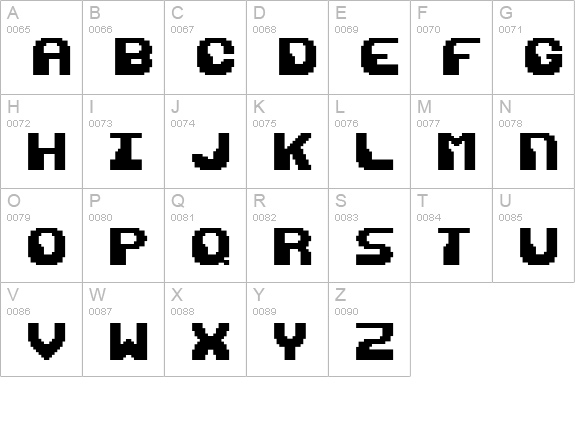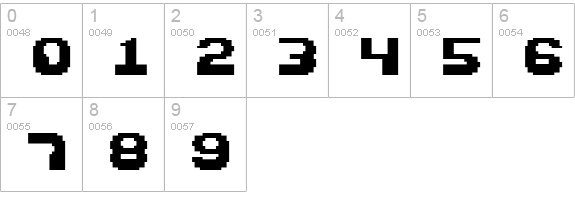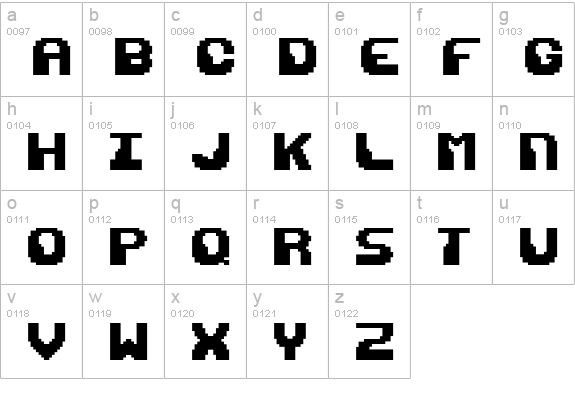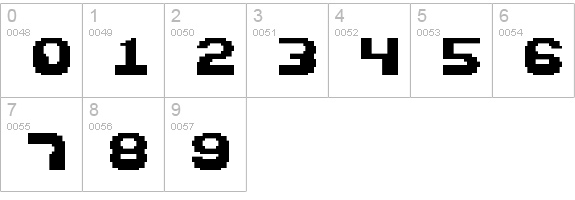
Razor 1911 Retro Font Details
Introducing Razor 1911 Retro font, a stunning typeface that effortlessly captures the spirit of vintage design. With its bold and distinctive letterforms, this font takes you back in time to the golden era of the early 20th century. Razor 1911 Retro font is a perfect choice for projects that require a touch of nostalgia, whether it's designing classic advertisements, creating retro-inspired logos, or crafting eye-catching headlines. Its timeless appeal and attention to detail make it a versatile font that will enhance any design. But what sets Razor 1911 Retro font apart is not only its impeccable aesthetics but also its availability. This font is completely free to download at FontsMarket.com. Yes, you read that right - it's free! Now you can add a touch of vintage charm to your designs without worrying about breaking the bank. So, why wait? Take advantage of this unique opportunity and download Razor 1911 Retro font today. Unleash your creativity and let this font transport you to a bygone era filled with elegance and sophistication. Whether you're a seasoned designer or just starting out, this font will undoubtedly become a valuable addition to your typographic toolkit. Don't miss out on this amazing offer - get Razor 1911 Retro font now and bring your designs to life in the most stylish way possible.